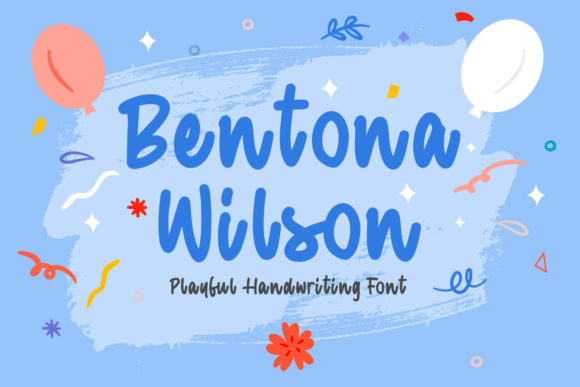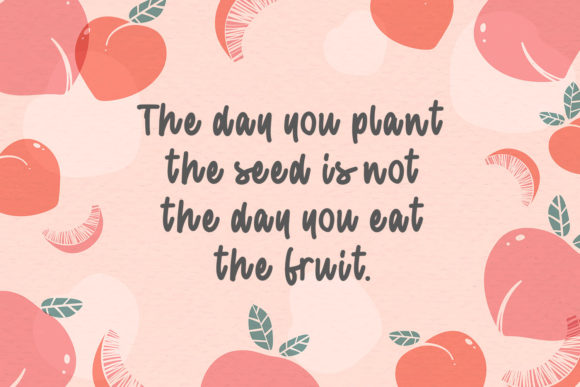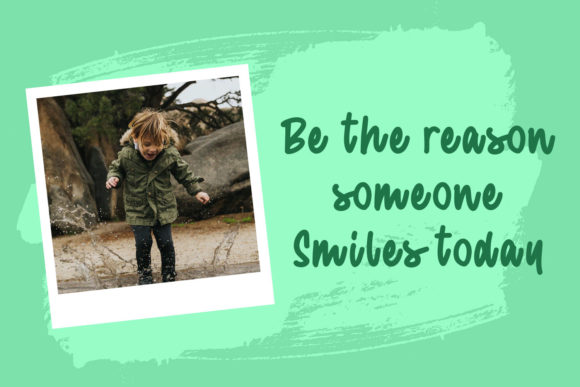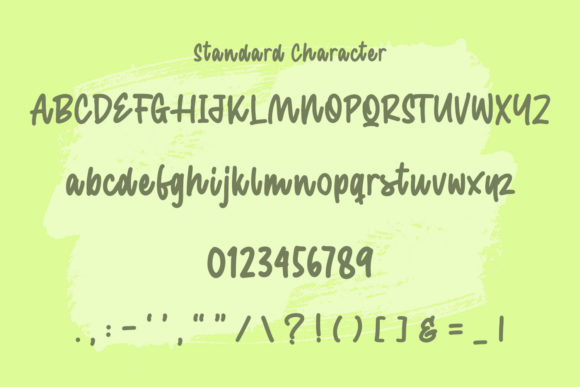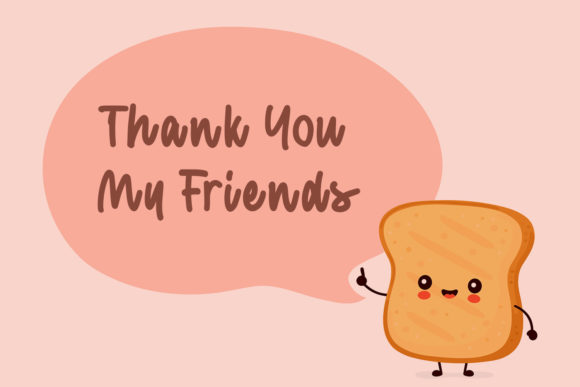
Bentona Wilson Font
About Bentona Wilson Font
Bentona Wilson is a cute and chunky charactered handwritten font. Add this colorful and and friendly font to each of your creative ideas and notice how it makes them come alive!